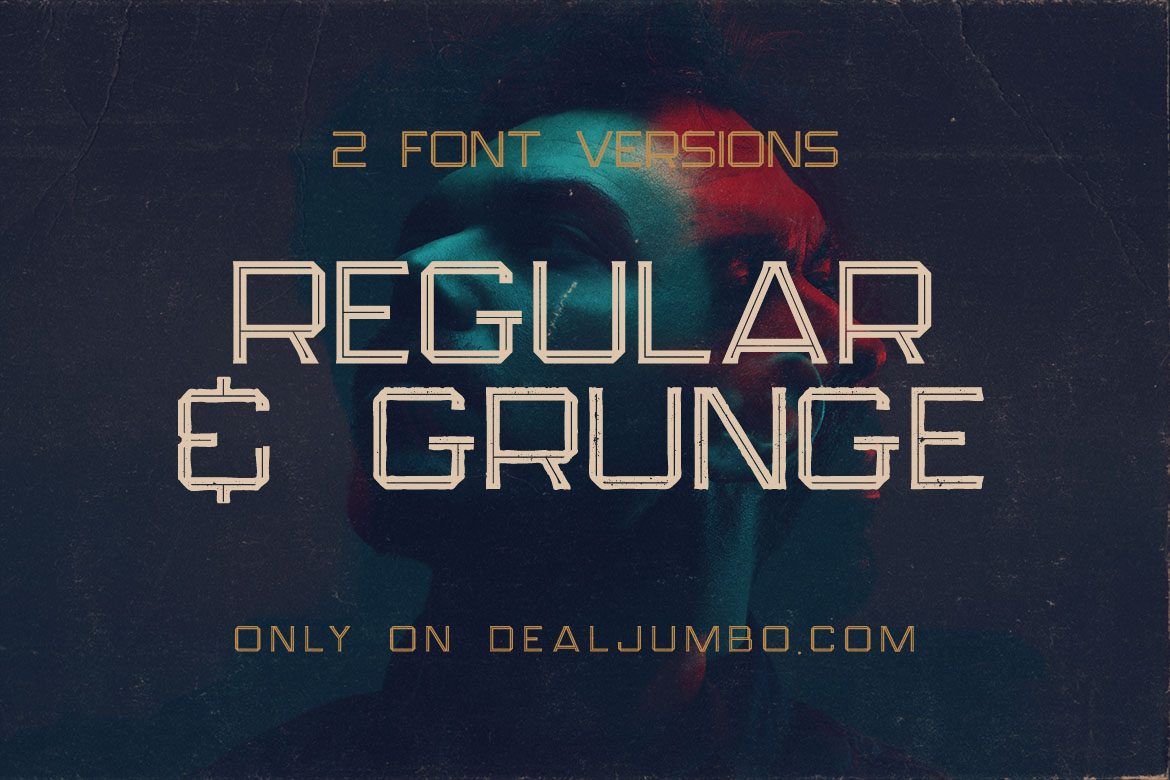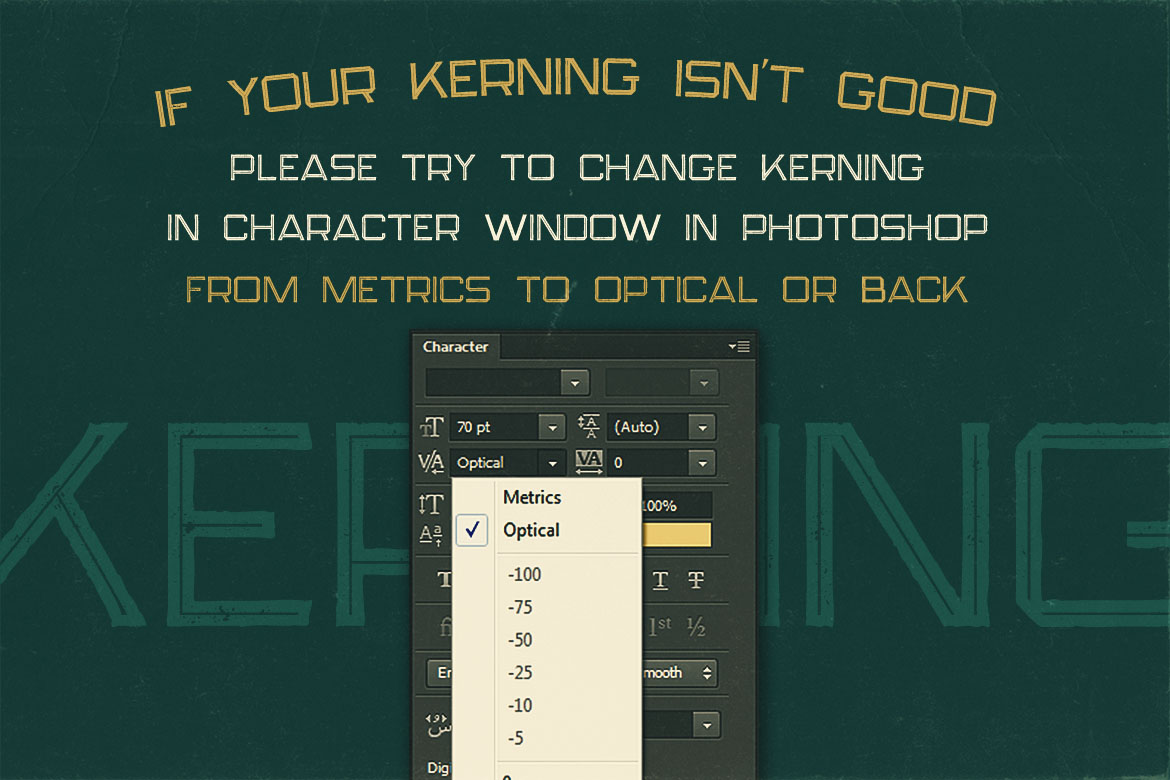
Strife Thin Inline – Free Font
Thin inline modern or sharp display sans – free font from Jumbo Design. Only basic characters in 2 font versions: Regular & Grunge. Download & enjoy ;) Exclusive only for dealjumbo!